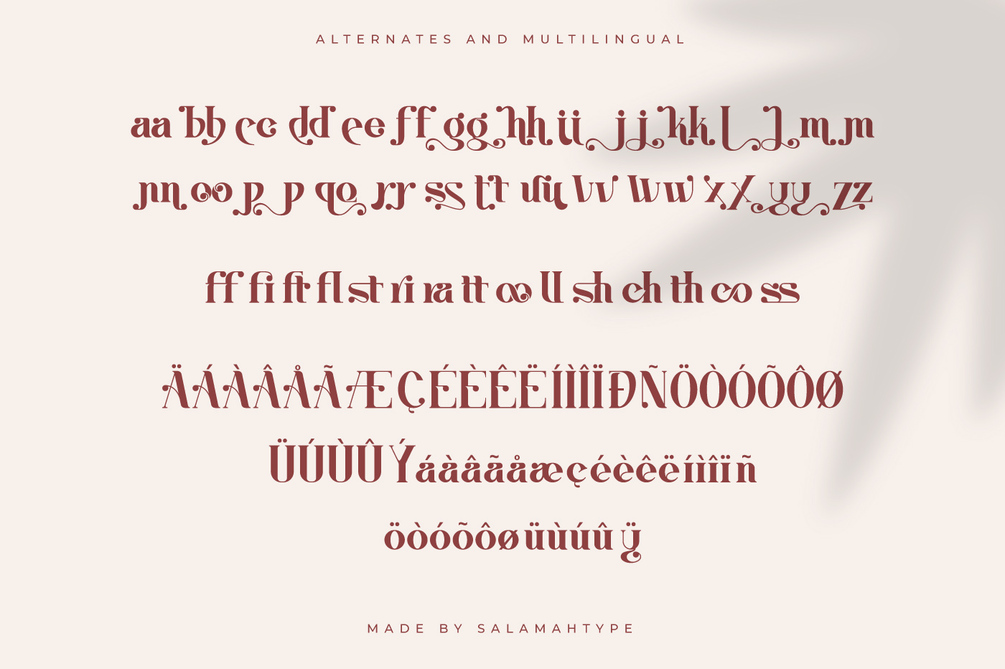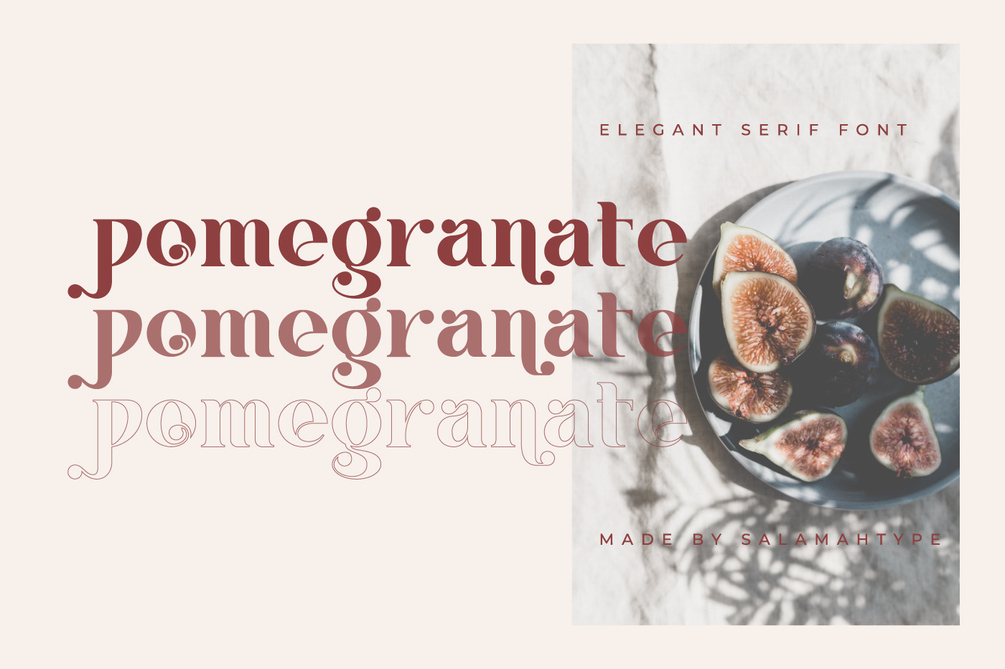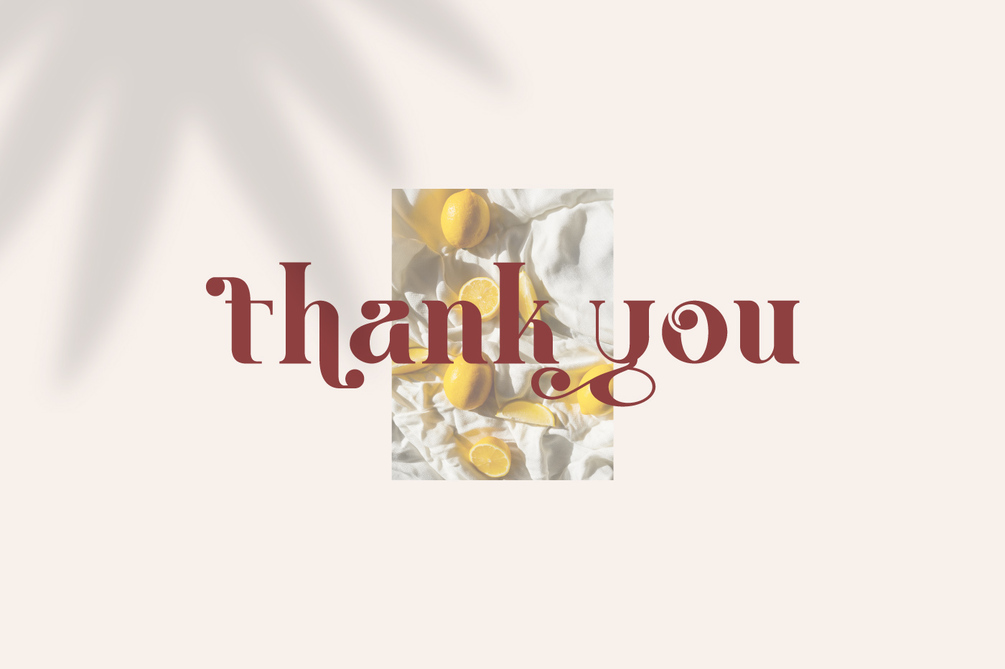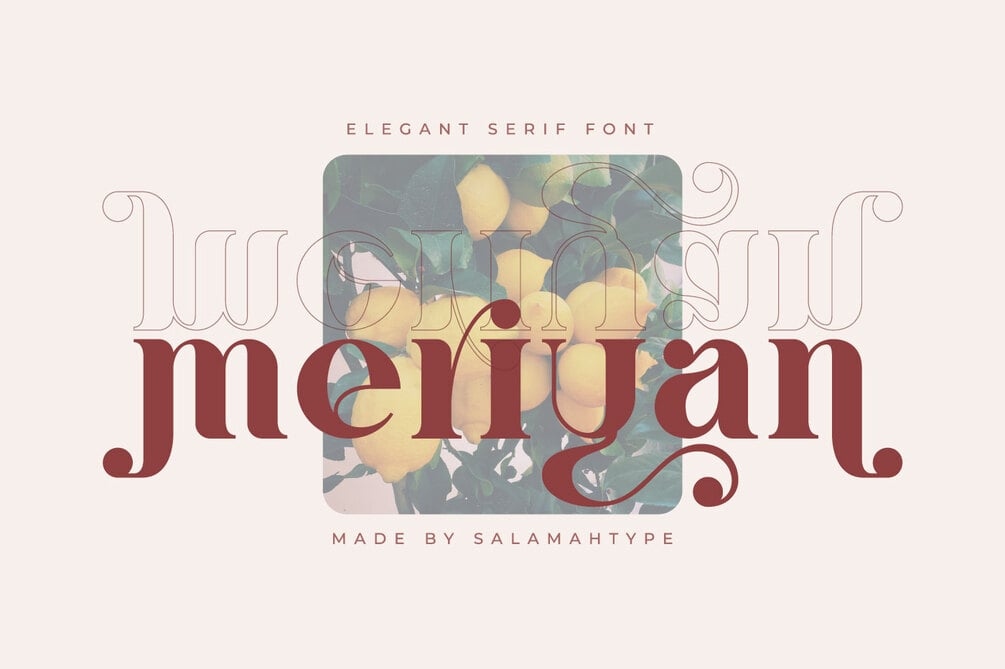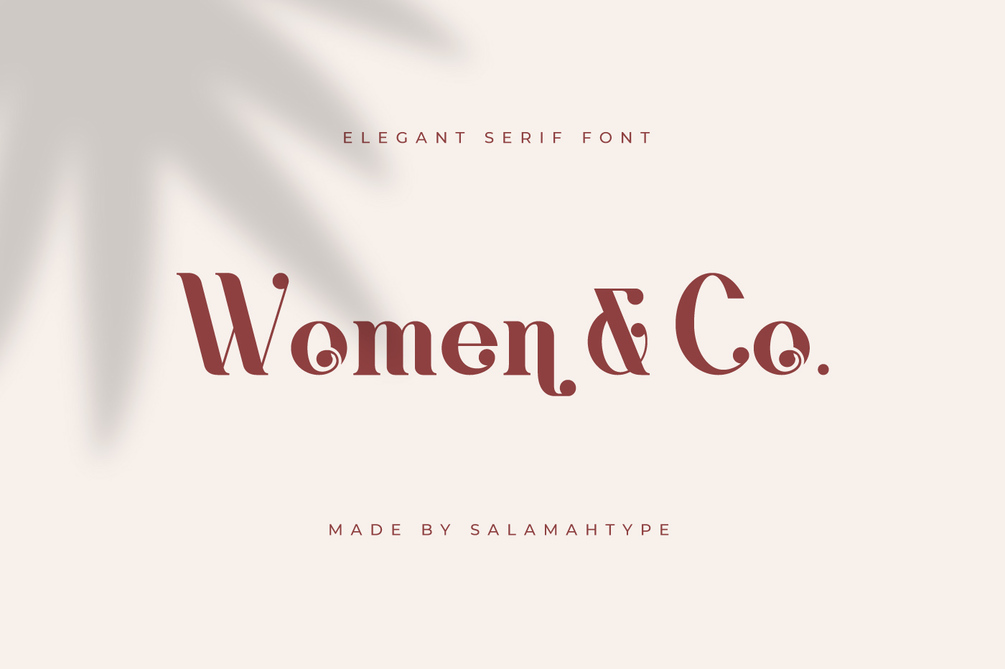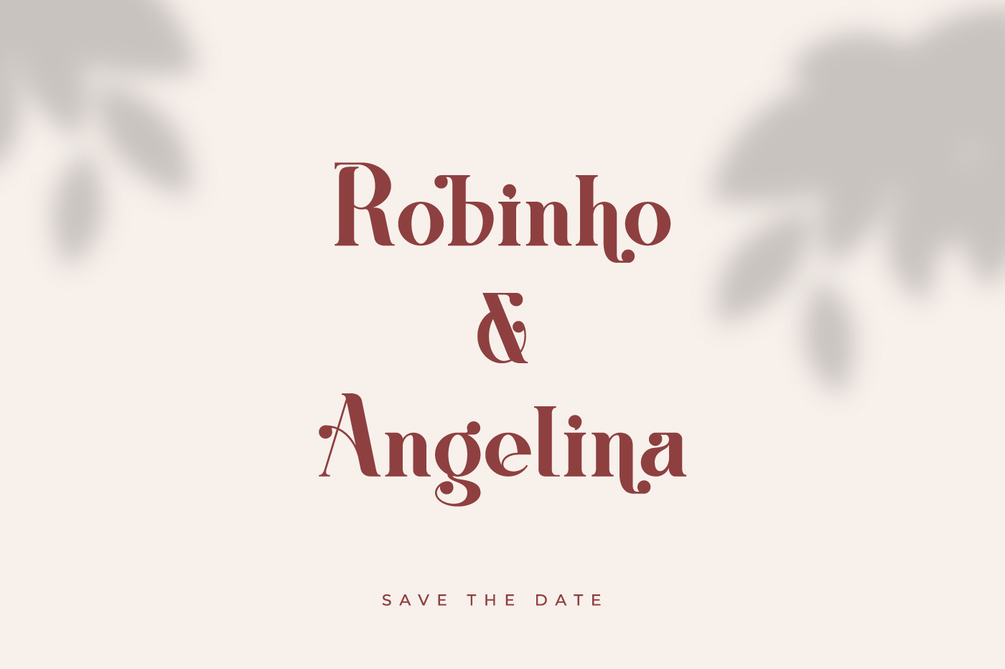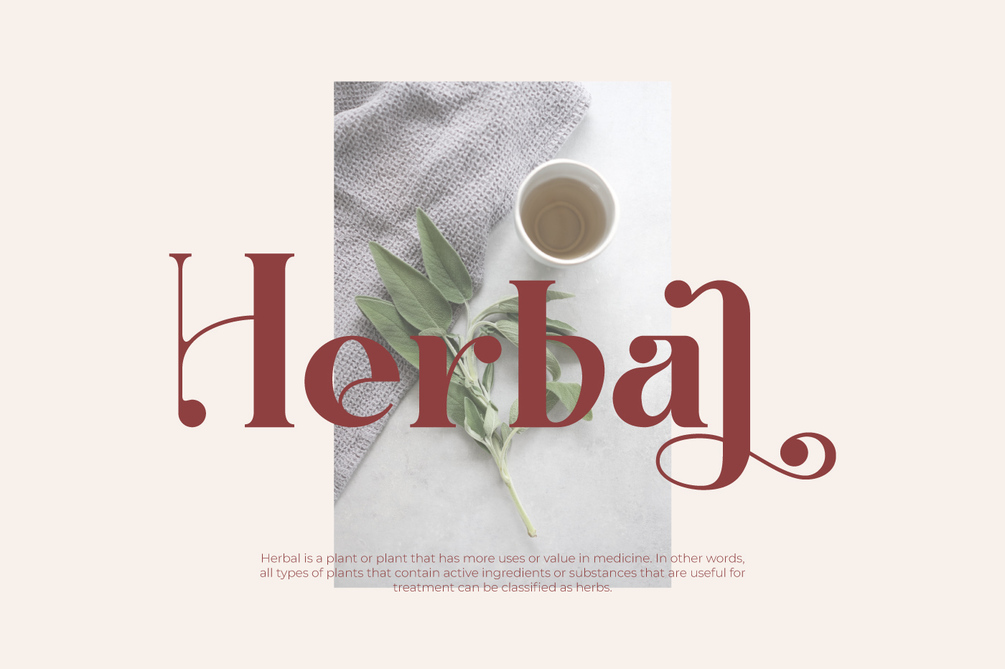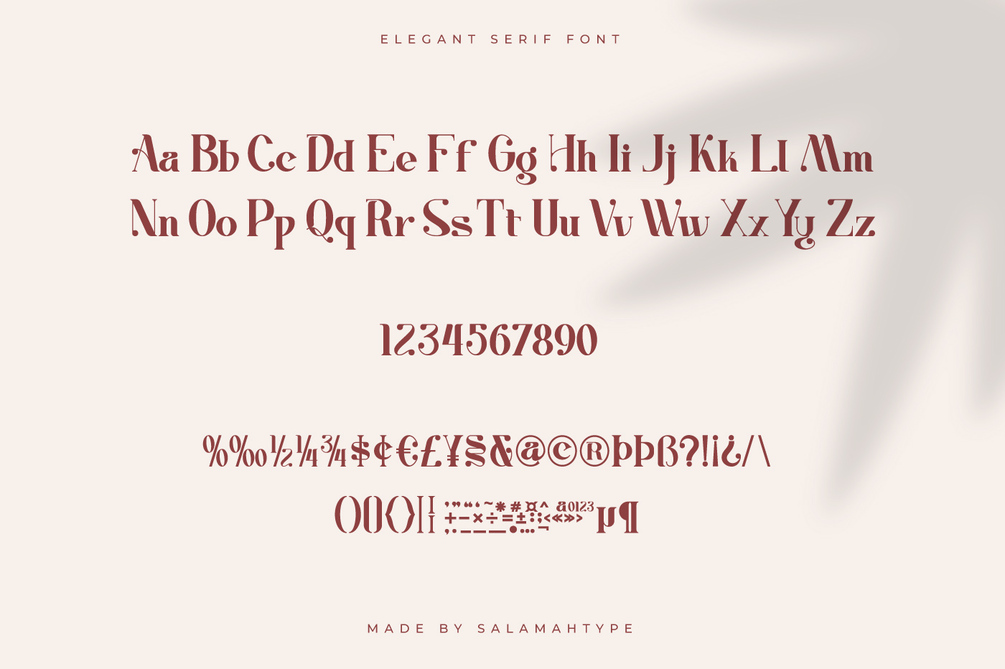
Meriyan - Elegant Font
Meriyan font is a stylish serif font with modern style. This font is perfect for logo, watermark, stationery, posters, flyers, social media posts, advertisements, product packaging, branding projects, product designs, label, photography, and so much more.
Features :
• Uppercase & Lowercase
• Numbers and Punctuation
• Ligature and Alternate
• MULTILINGUAL